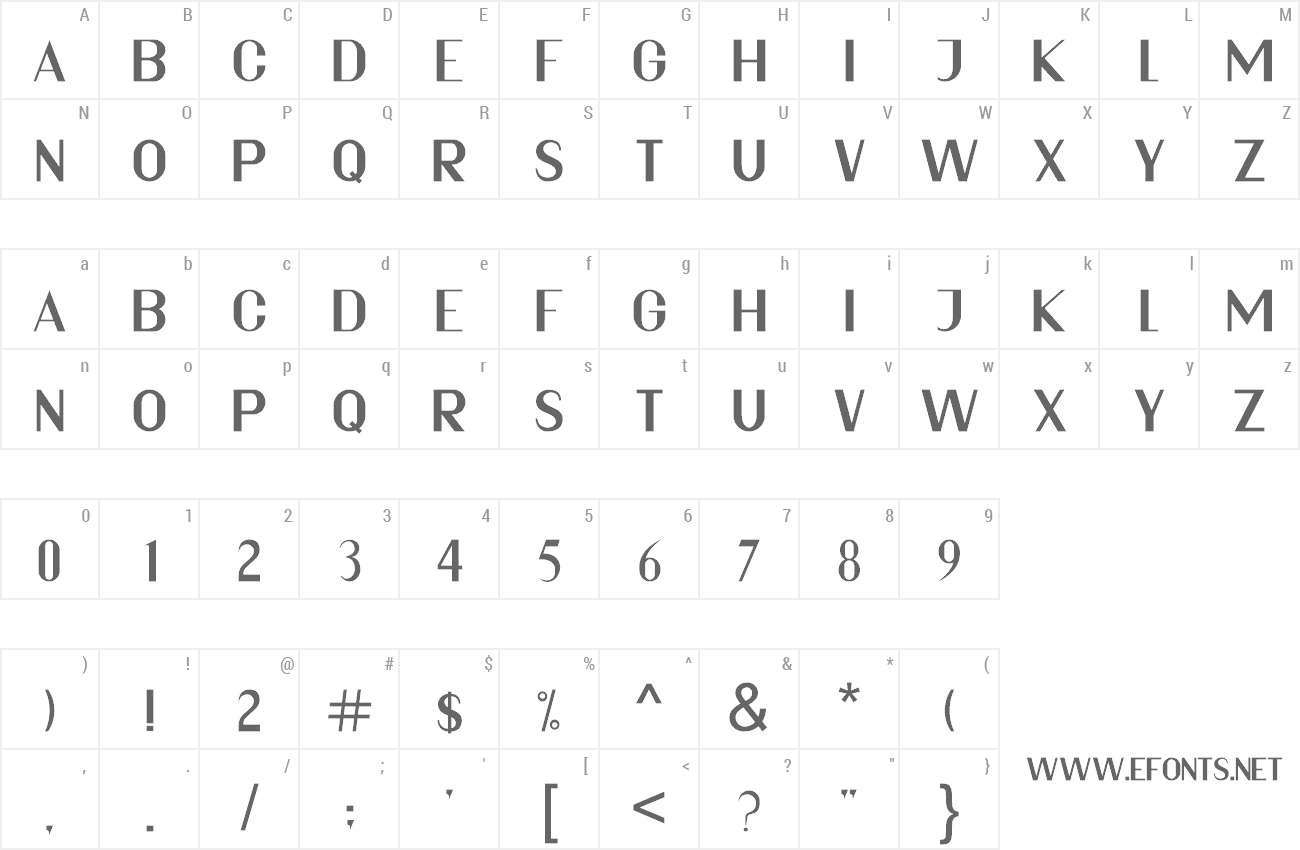
| Font name: | Alyshen |
| Author: | Artspace Design |
| Note by Artspace Design | |
| The ALYSHEN is a beautiful Sans Typeface. It has an elegant, yet modern style and will add a personal touch to your designs. |